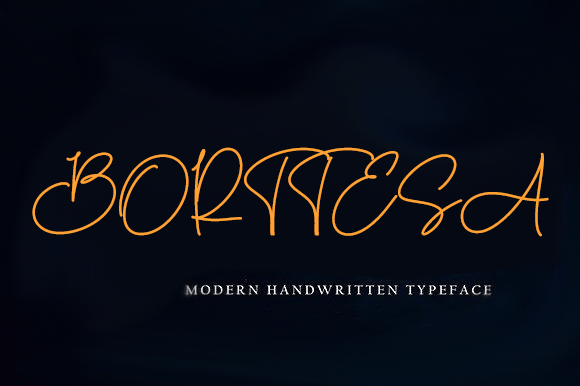
Dive into the enchanting realm of typography with Borttesa Font, a script font family that will add a touch of elegance and charm to your creative projects. Designed by the talented Pineungtype & Missinklab, Borttesa Beach is a modern handwritten typeface that captivates with its fluid strokes and graceful curves.
Journey into the world of endless possibilities with Borttesa Font. This stunning font is the perfect companion for your creative expressions, whether you're crafting heartfelt quotes, designing eye-catching logos, or creating captivating blog headers. Its versatility knows no bounds, extending to posters, branding, letters, invitations, and stationery.
With Borttesa Font, your words will dance with a newfound grace, leaving a lasting impression on your audience. Its meticulous craftsmanship ensures that every letter is a work of art, adding a touch of sophistication to your projects.
Unleash your creativity and let Borttesa Font guide you towards design excellence. Its effortless flow and elegant curves will transform your projects into masterpieces, leaving your audience spellbound.